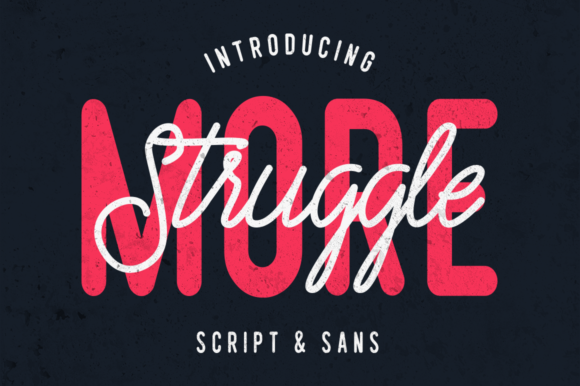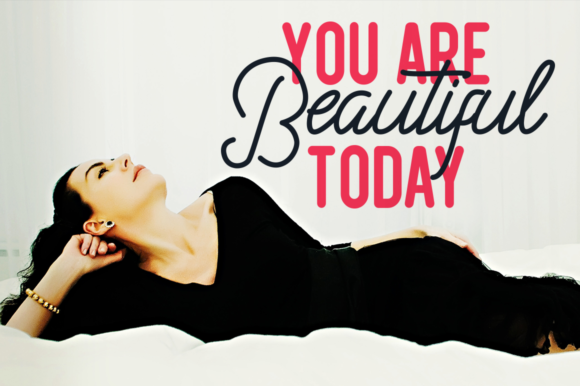
About Struggle More Duo Font
The Struggle More is a striking font duo. It comes in a script and a sans version which gives you the opportunity to create multiple unique designs, with just this one download. Both typefaces compliment each other very well, making this product perfect for use in logos, lettering, quotes, cards, flyers or anything you want.
There are also some fun bonus quotes included!